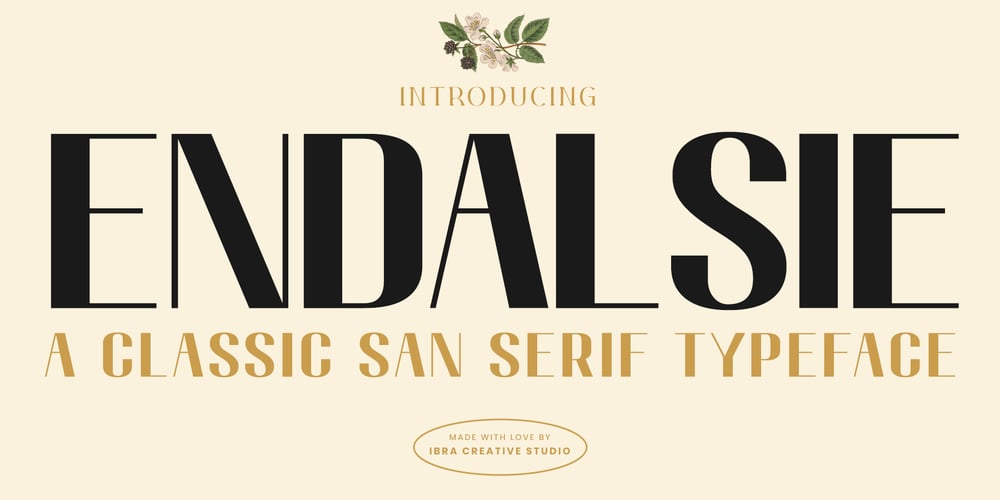
Endalsie Font Family was designed by Roisatul Azizah and published by IbraCreative. Endalsie contains 1 styles and family package options. Endalsie – A Casual Sans Serif Typeface Endalsie, a casual sans serif typeface, embodies a sense of effortless charm and modernity with its clean lines and relaxed demeanor. Each letter in Endalsie maintains a subtle balance between informality and professionalism, making it suitable for a wide range of design applications. Whether used for branding, editorial layouts, or digital displays, Endalsie adds a touch of contemporary flair while maintaining readability and accessibility. Its laid-back yet refined aesthetic makes it a versatile choice for designers looking to strike the perfect balance between casual and polished in their projects.Endalsie is perfect for branding projects, logo, wedding designs, social media posts, advertisements, product packaging, product designs, label, photography, watermark, invitation, stationery, game, fashion and any projects.Fonts include multilingual support for; Afrikaans, Albanian, Czech, Danish, Dutch, English, Estonian, Finnish, French, German, Hungarian, Italian, Latvian, Lithuanian, Norwegian, Polish, Portuguese, Slovak, Slovenian, Spanish, Swedish.